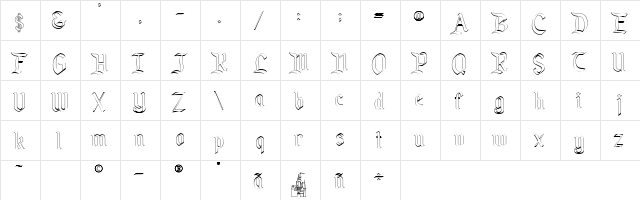
KingdomOutline Regular
Design Context for KingdomOutline Typeface
KingdomOutline brings ornamental detail and strong personality to headlines and identities, where visual impact matters more than quiet functionality.
Font Pairing: Pair with a clean neutral sans-serif for body copy to let KingdomOutline's character lead without overwhelming the composition.
Pro Tip: Treat KingdomOutline as the centrepiece of your typographic hierarchy. One strong heading set in a decorative face can carry an entire layout.